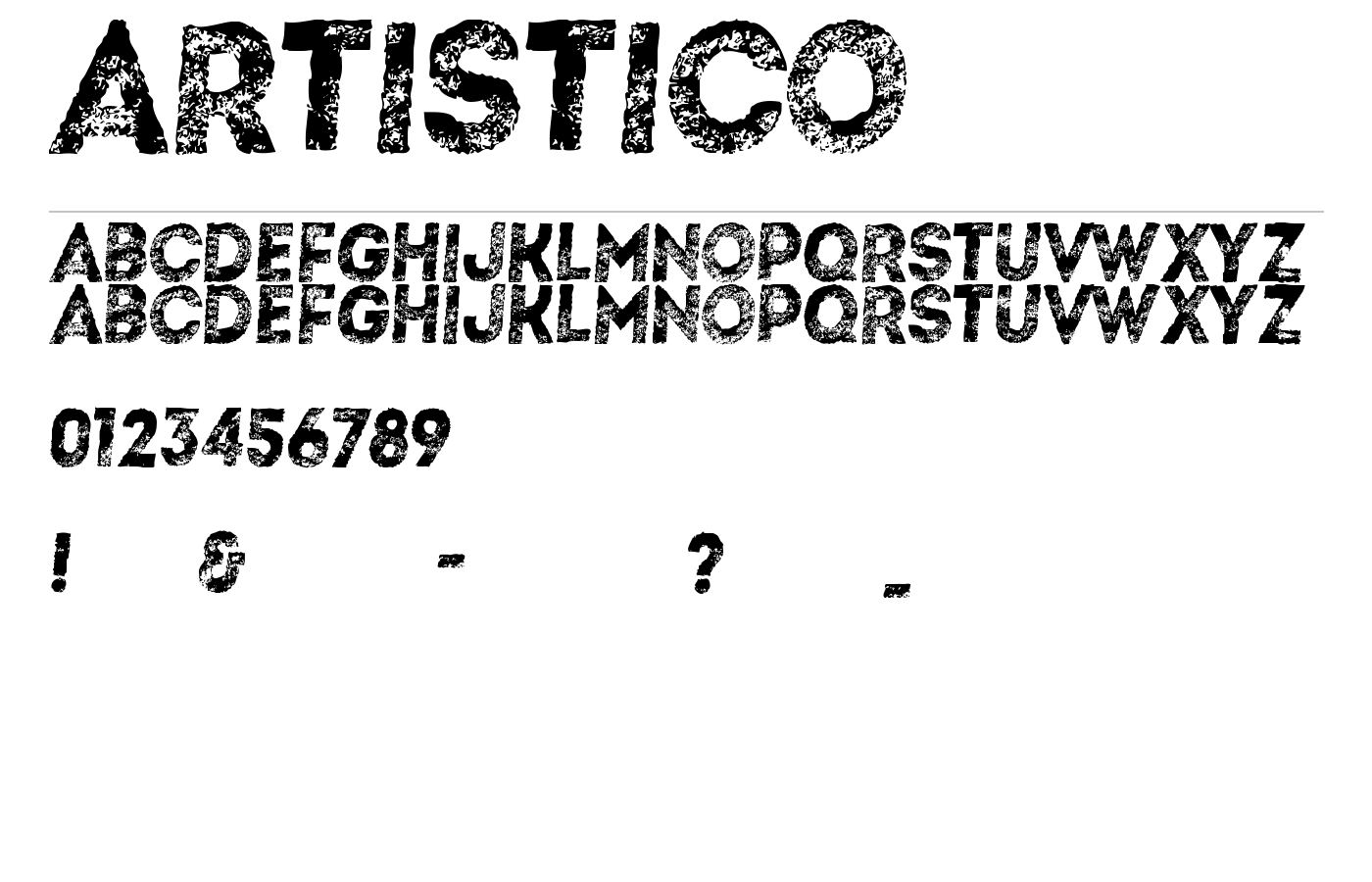
Artistico is a bold, distressed sans serif font that features a textured, worn look with irregular edges, giving it a raw, artistic vibe. Its strong, uppercase letterforms with high contrast in texture make it perfect for eye-catching headlines, posters, and creative branding where a gritty, handmade feel is desired. This font works well to add personality and a sense of rebellious creativity to designs.
Artistico Font
About Artistico Font
| Font family | Artistico Font |
| Designer | cruzine |